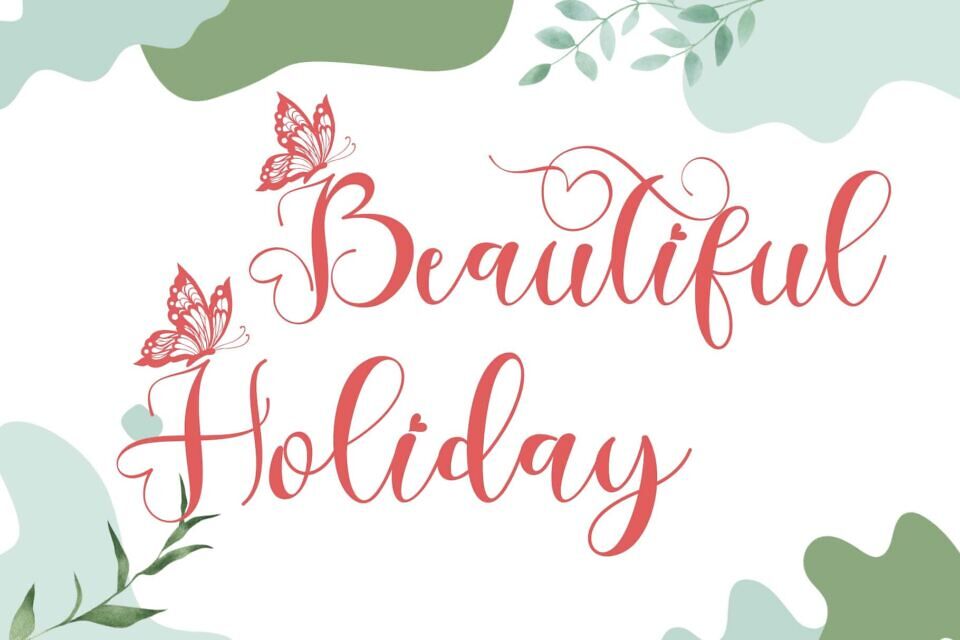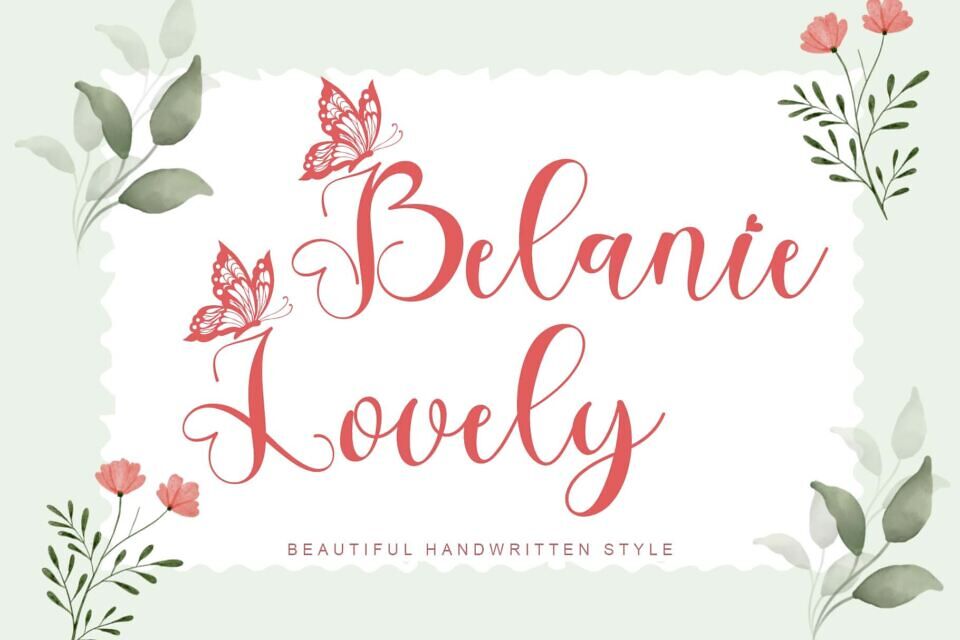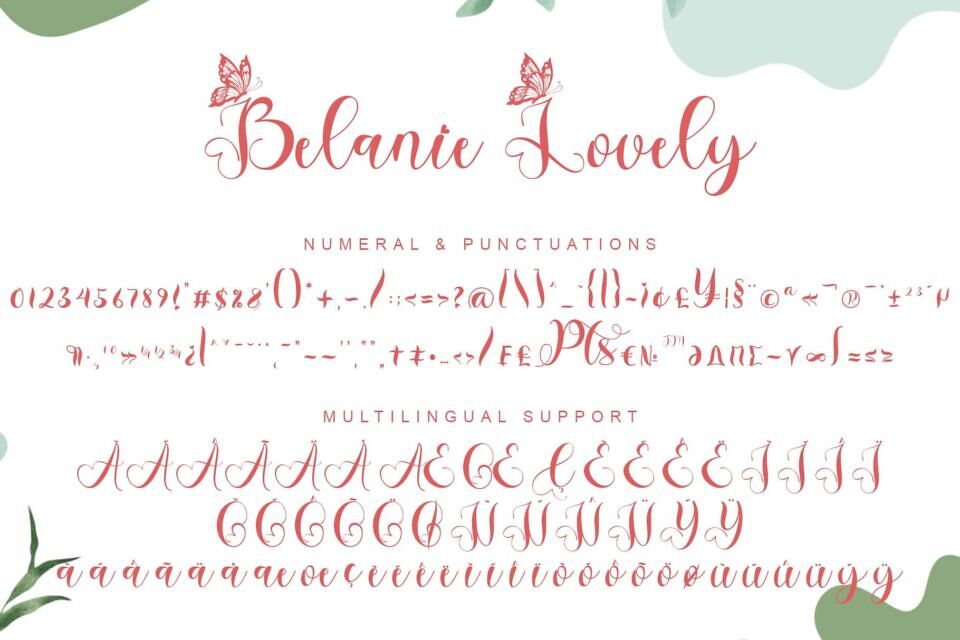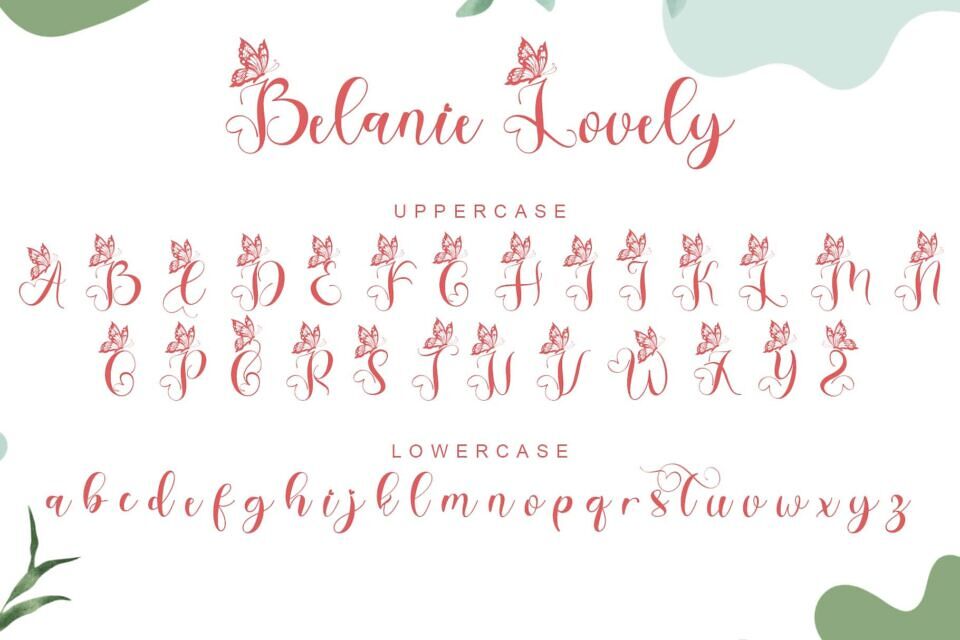
Belanie Lovely is a beautiful and unique handwritten font with butterfly decoration on each capital letter. Equipped with uppercase, lowercase, numeral, punctuations and multilingual support. Very suitable for spring, summer, easter, wedding, valentine, invitations, christmas and others.